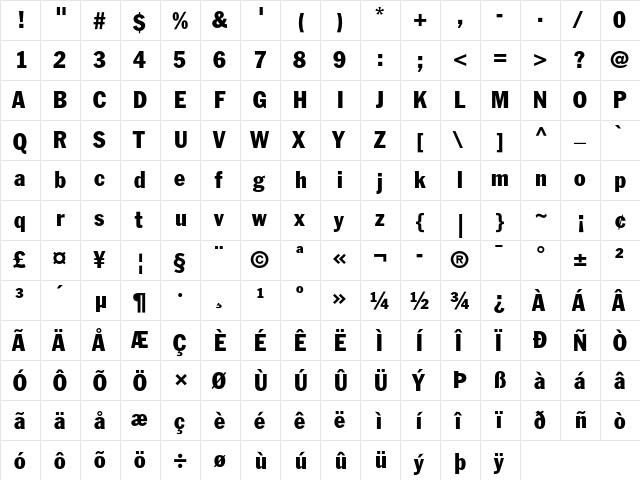
Franklin Gothic Condensed
Design Context for Franklin Gothic Typeface
Franklin Gothic takes a clean, functional approach — its unadorned letterforms prioritise legibility and work reliably across screen and print environments. Its narrow stance lets it pack a punch even in space-constrained designs.
Font Pairing: Works well alongside a characterful serif or display font that can carry the expressive load while Franklin Gothic handles the functional copy.
Pro Tip: Try Franklin Gothic in all-caps with moderate tracking for navigation and label copy — it performs well in systematic UI contexts.